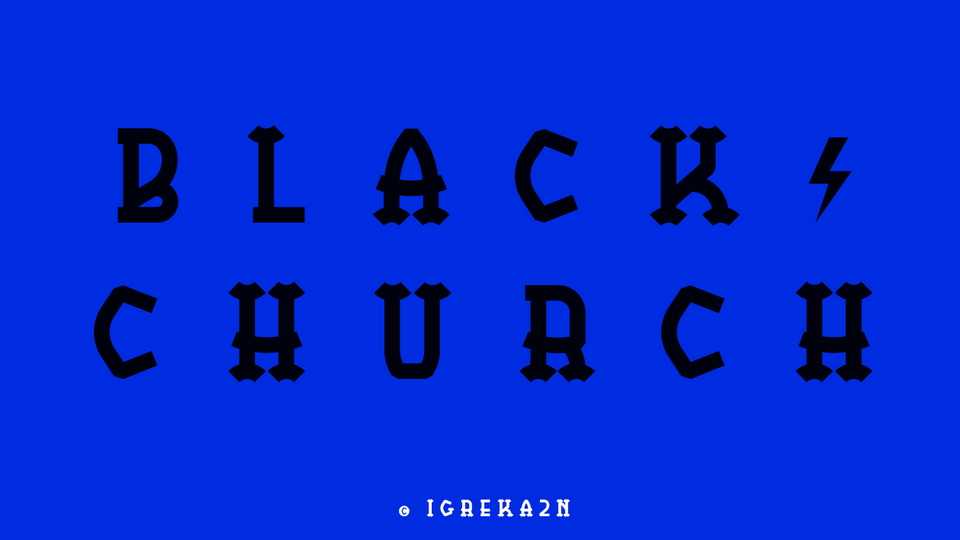
Download Black Church font – a unique display typeface with character and a strong personality. It looks great for vintage designs, logos, badges and labels, posters and othr display purposes. It contains uppercase letters, numerals and symbols.
Designer: igreka2n